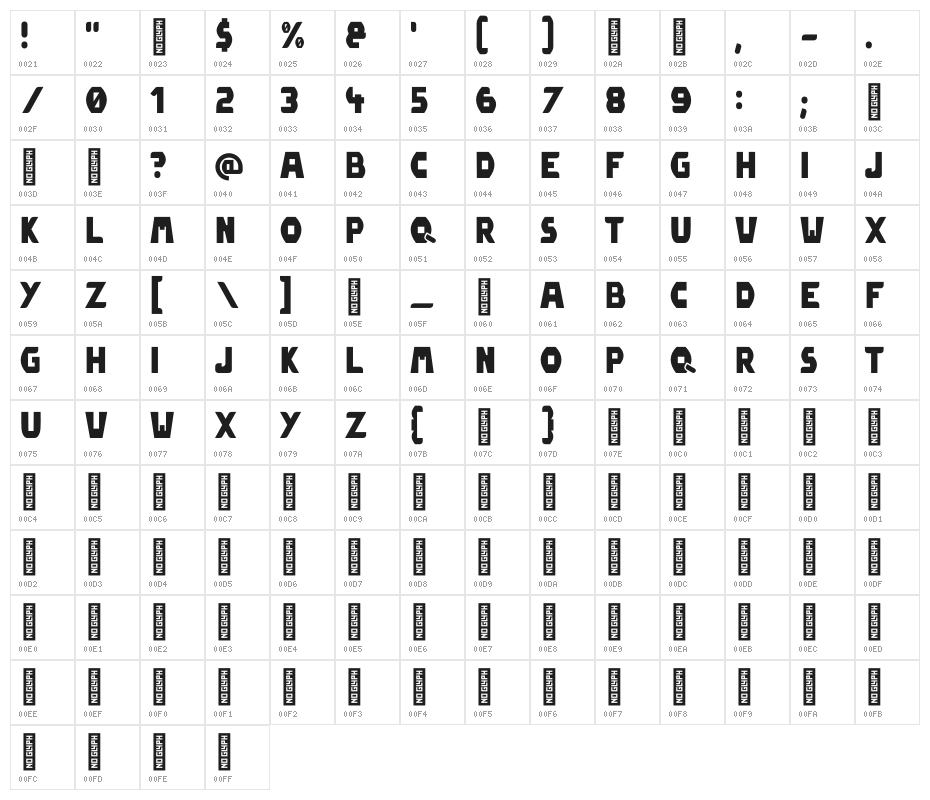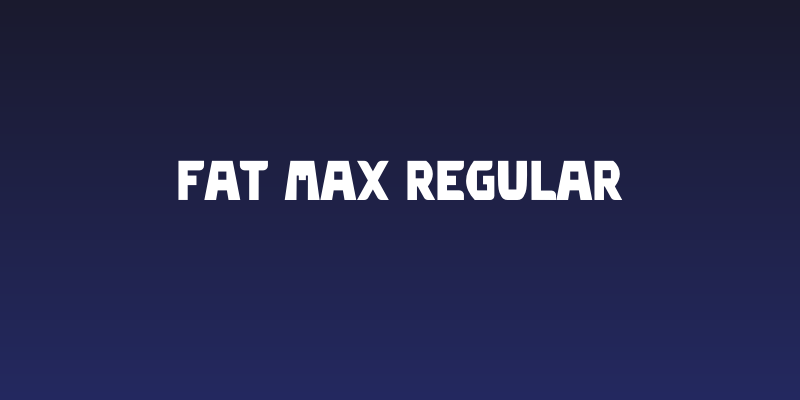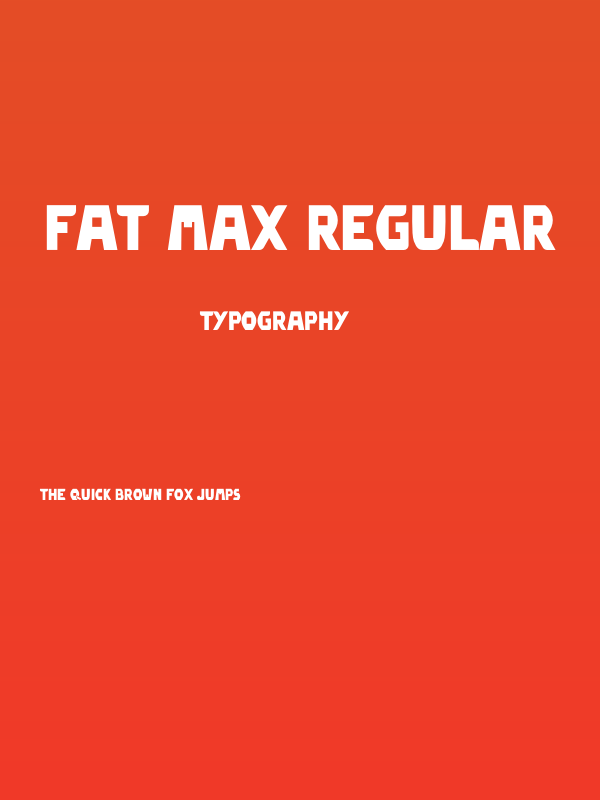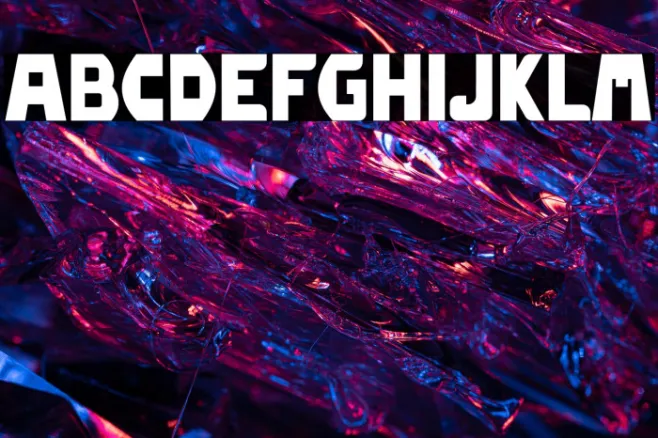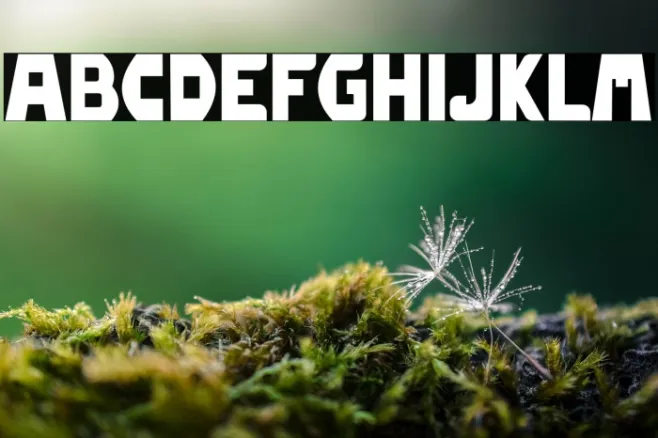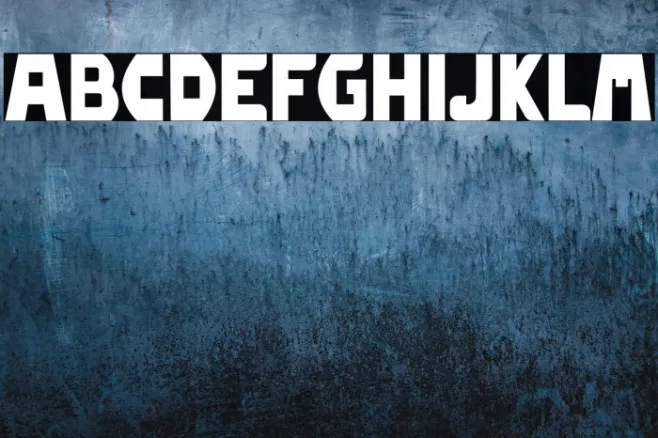
Fat Max Regular Font
Fat Max Regular Description
This font features a bold, geometric style with thick, blocky characters that convey a strong and impactful presence. The uppercase letters are uniform in height, with sharp angles and straight lines that create a sense of stability and strength. The numerals are equally bold, maintaining the same geometric consistency. Special characters are distinct and easily recognizable, adding versatility to the font. The overall design is modern and assertive, making it suitable for attention-grabbing headlines and displays.
| Proposed Projects | Ideal for posters, logos, branding, and any project requiring a strong visual impact. |